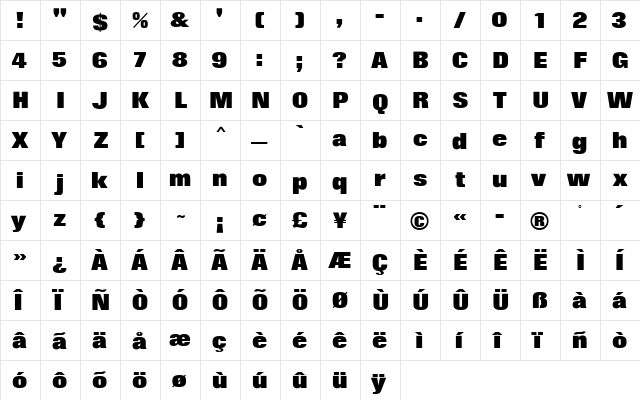
Folio MN ExtraBold
| Foundry | Mecanorma International . \ |
Design Context for Folio MN Typeface
Folio MN is a composed and adaptable typeface that performs quietly and consistently across a wide range of design contexts. Its bold stroke weight gives it real presence on the page.